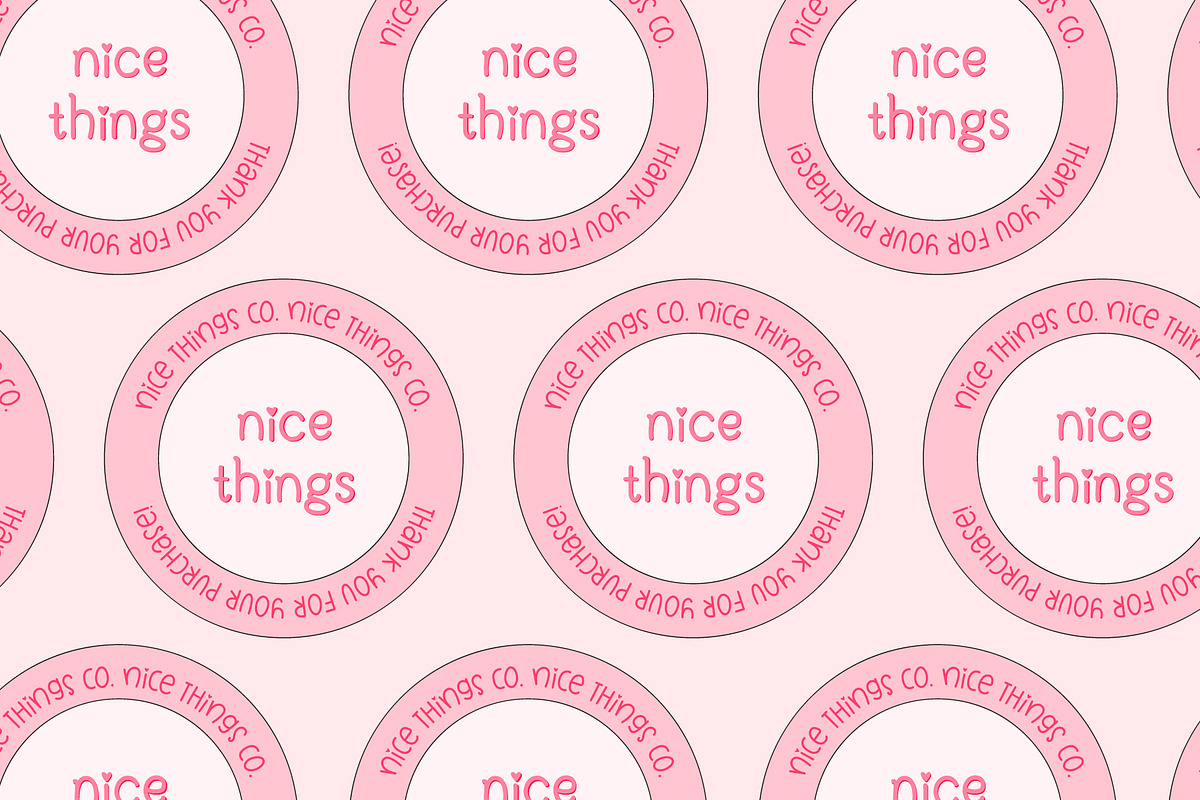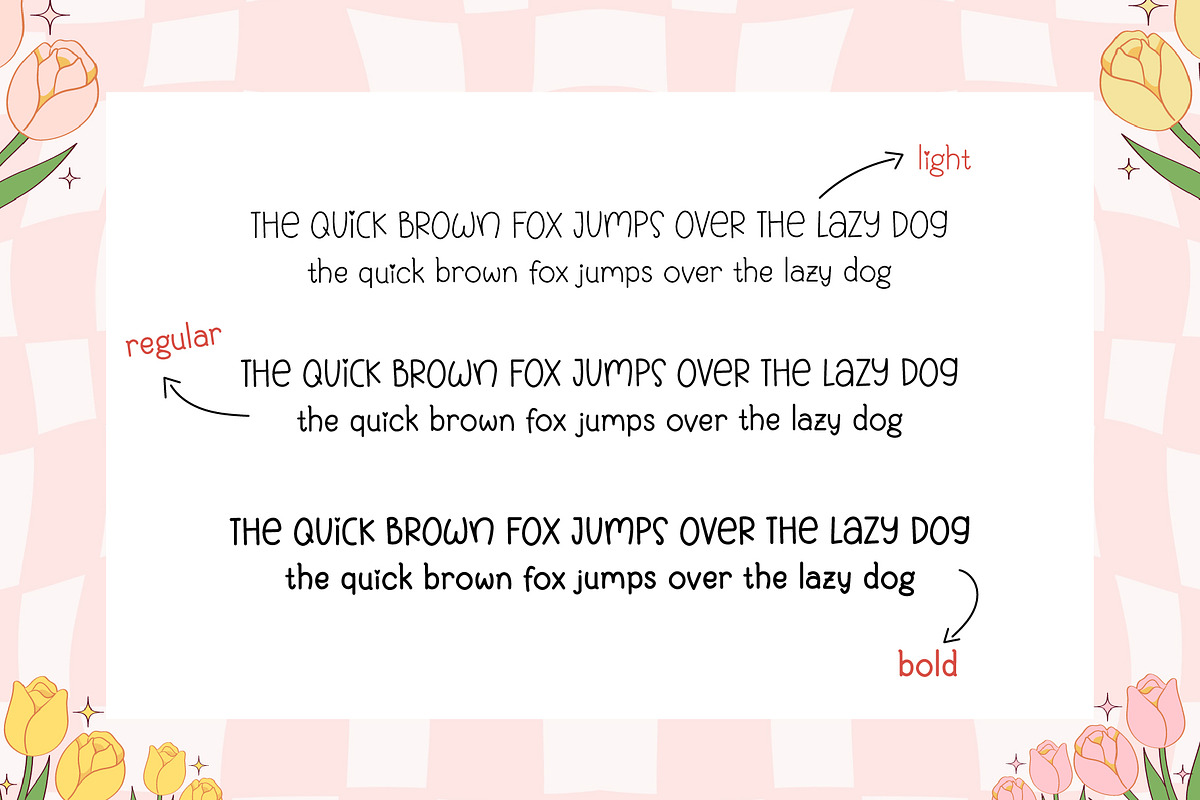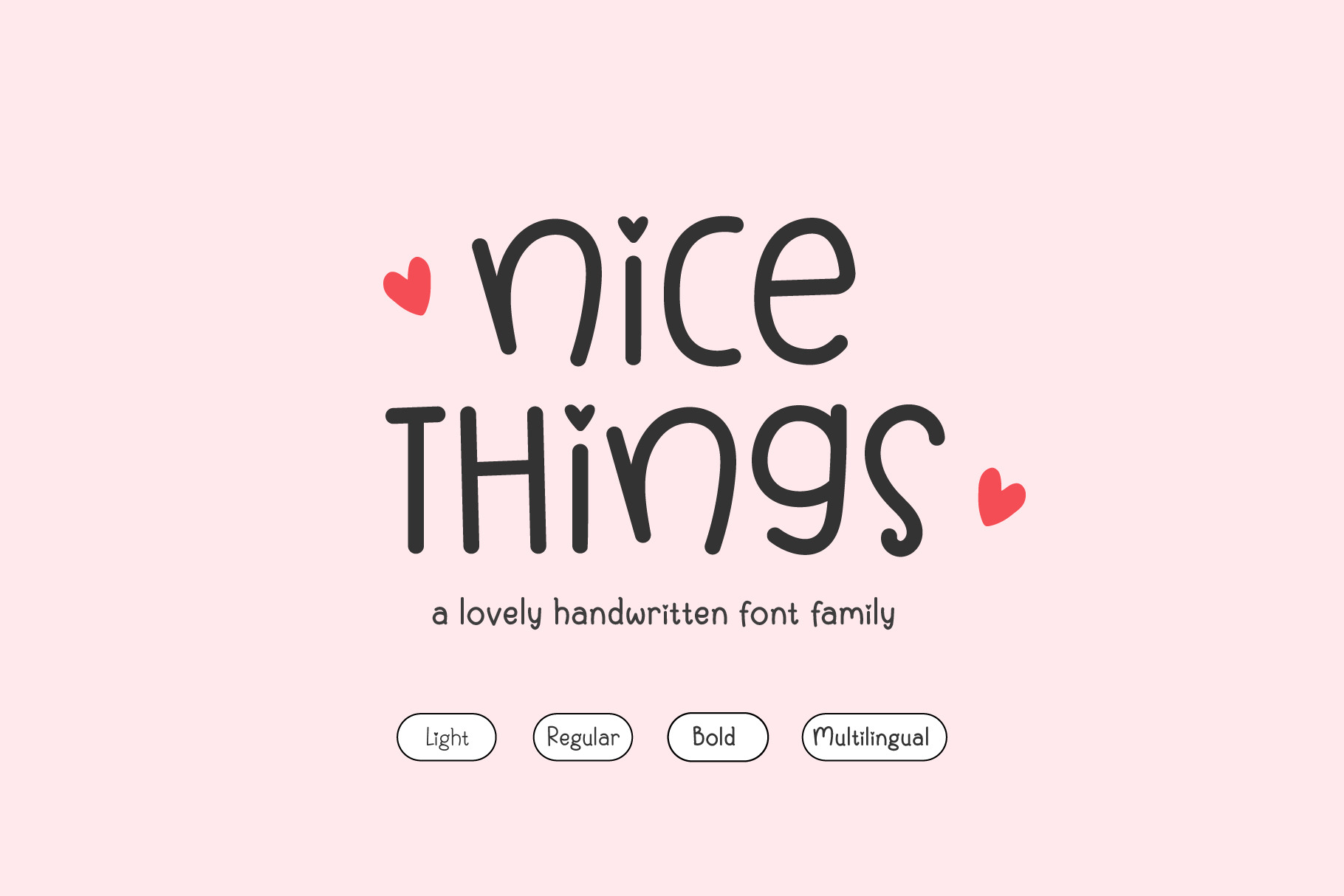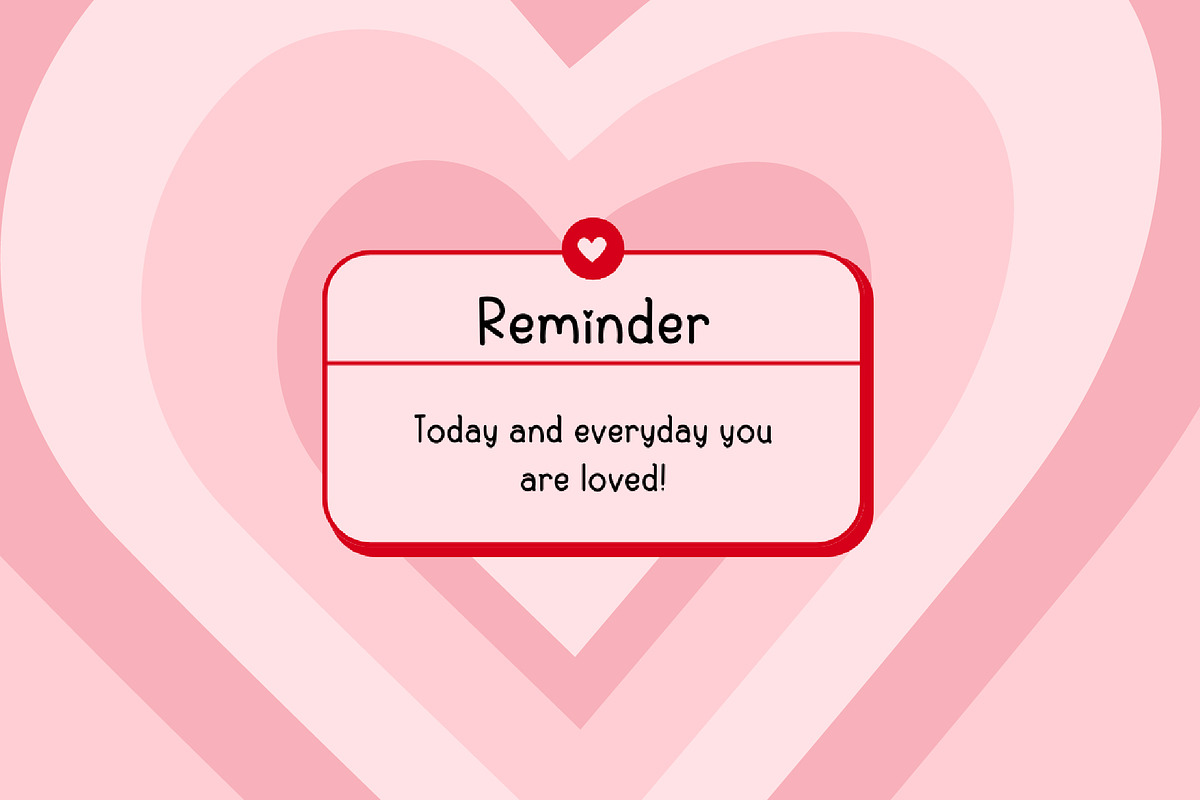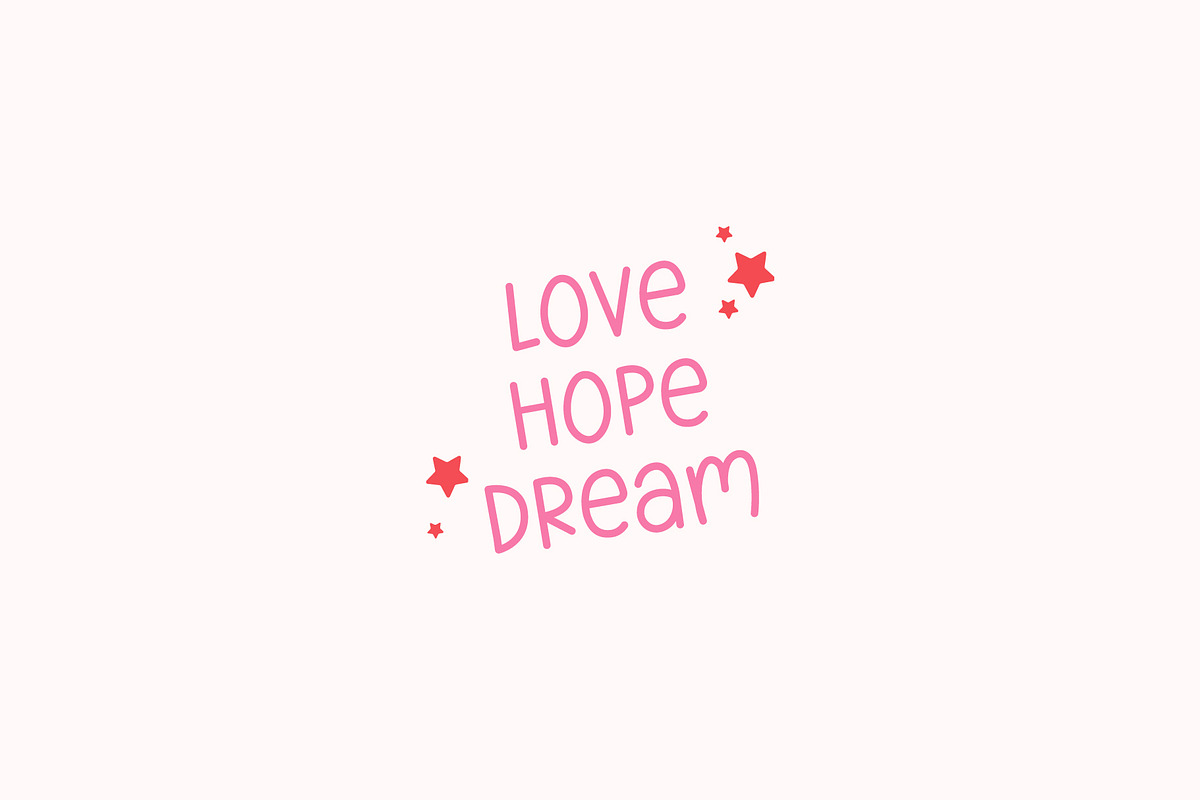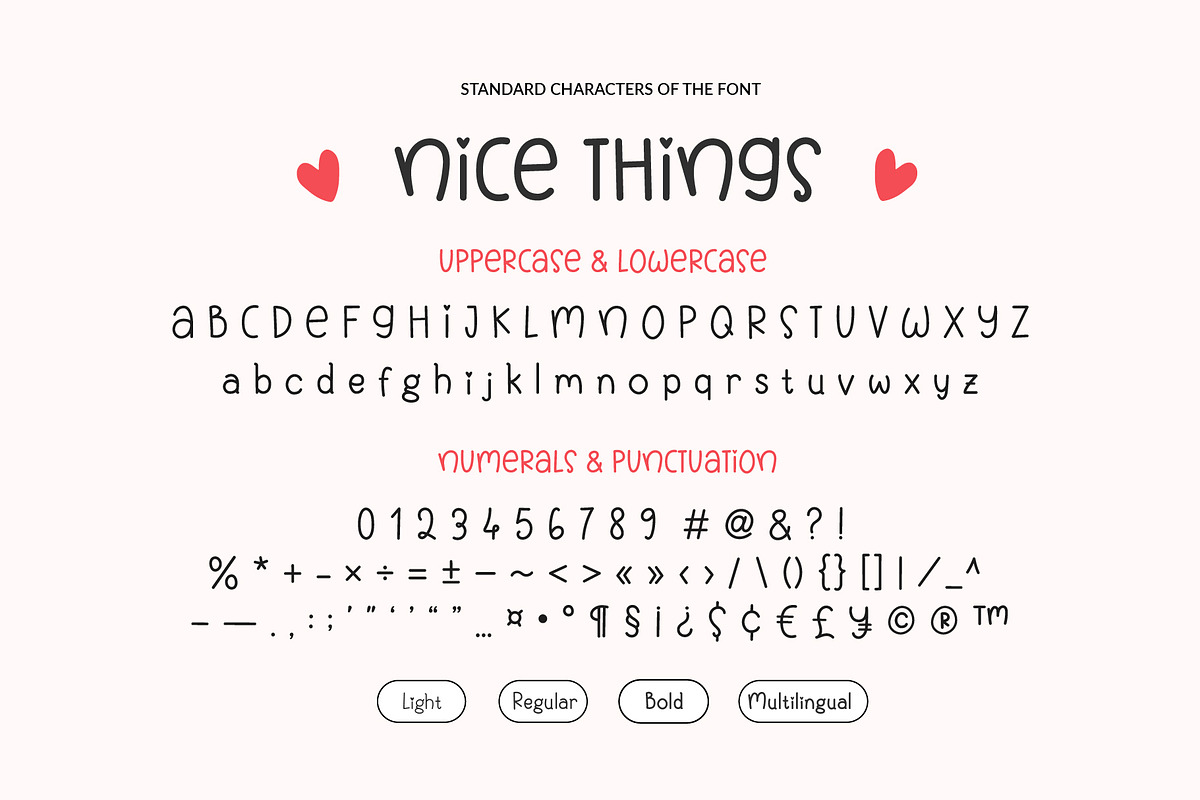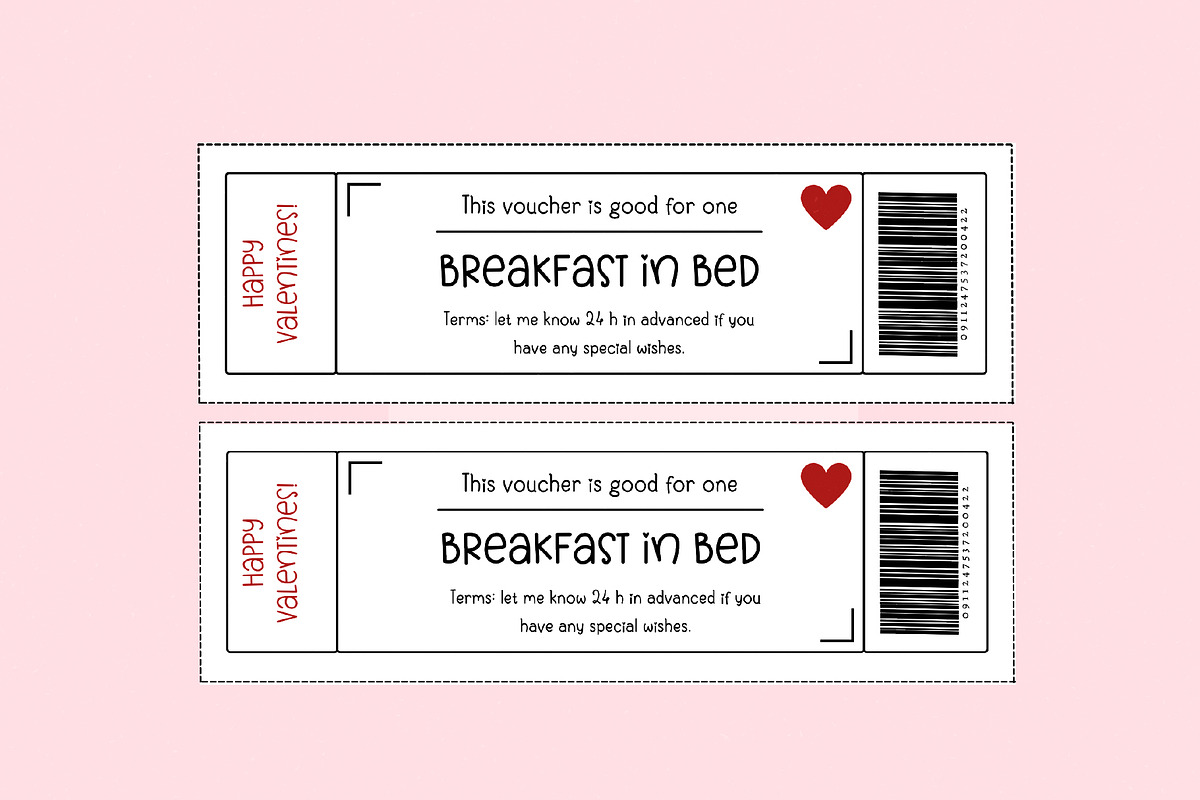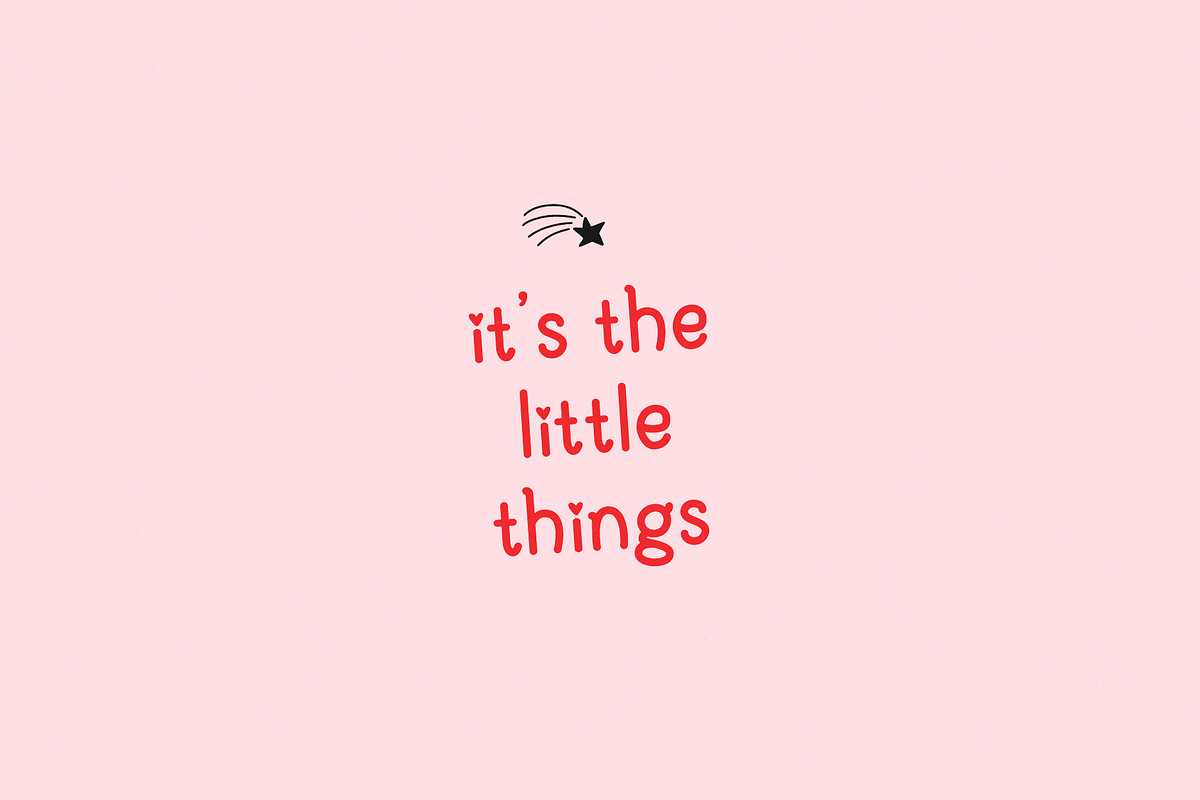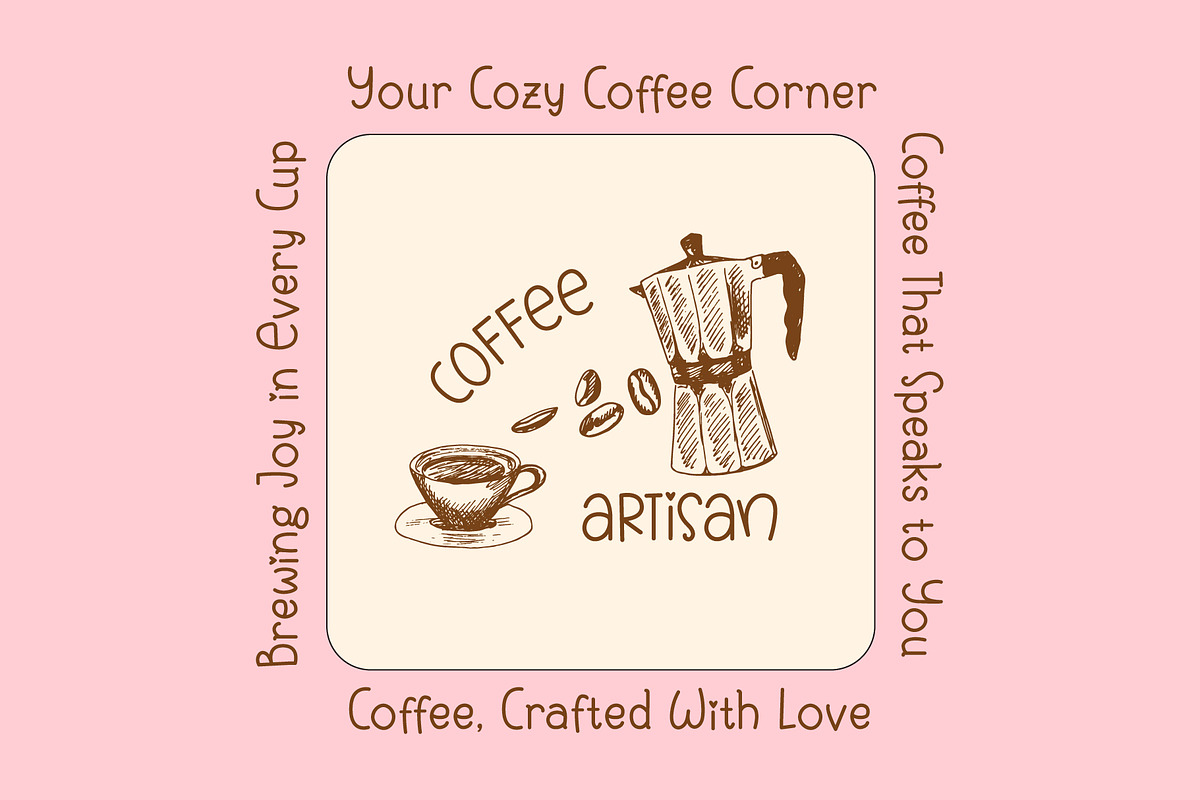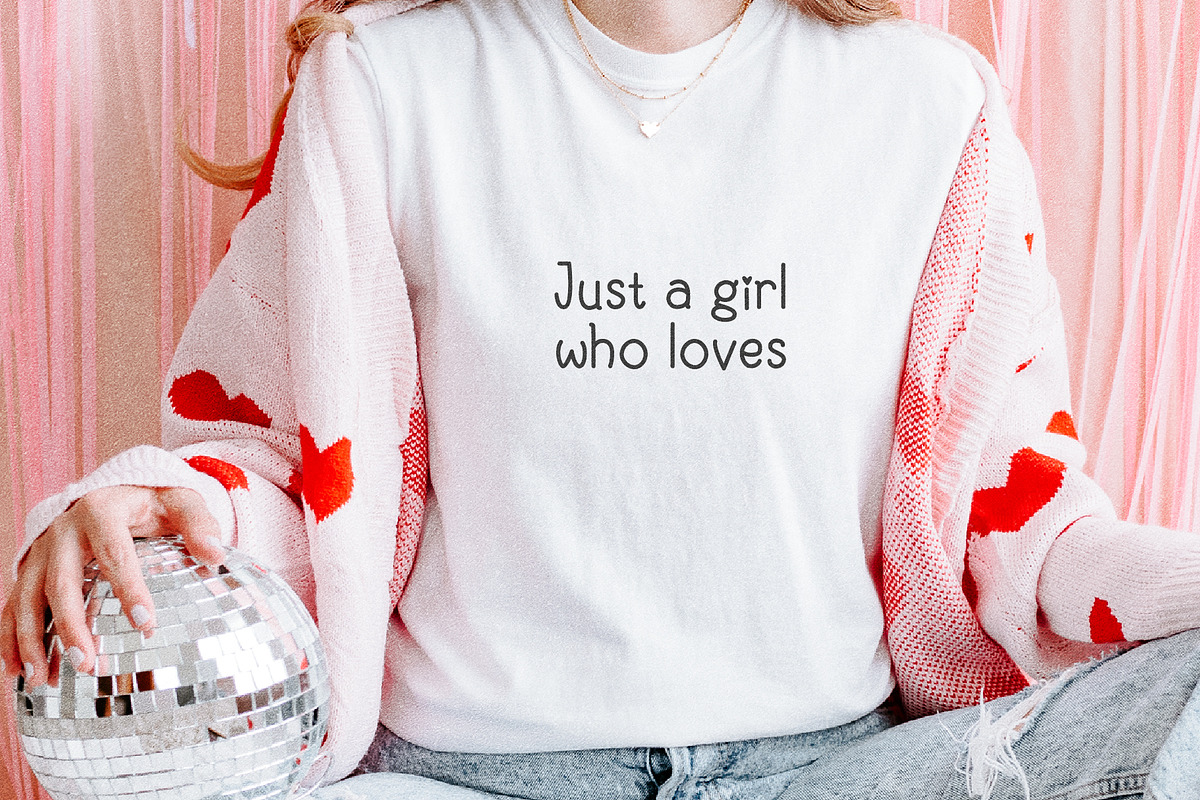
Nice Things - Valentine's Day Font
Say hello to Nice Things, a lovely handwriting font that brings warmth and personality to your designs. It is great for craft projects, invitations, greeting cards, logos, branding, social media, printed goods or anything that requires cute handwritten lettering.
This versatile font is available in three weights—light, regular, and bold—and supports a wide range of languages.
FONT FEATURES
• Cute handwriting style
• Standard characters (lowercase, uppercase, numbers, punctuation)
• Multilingual